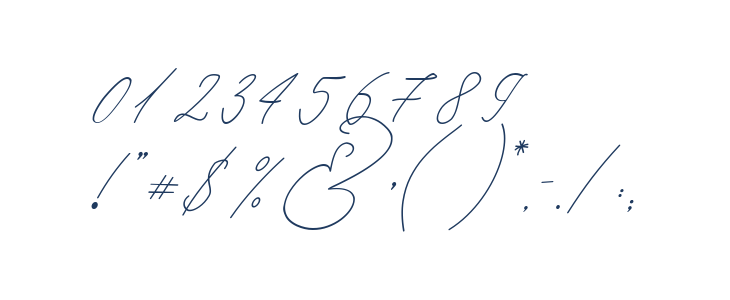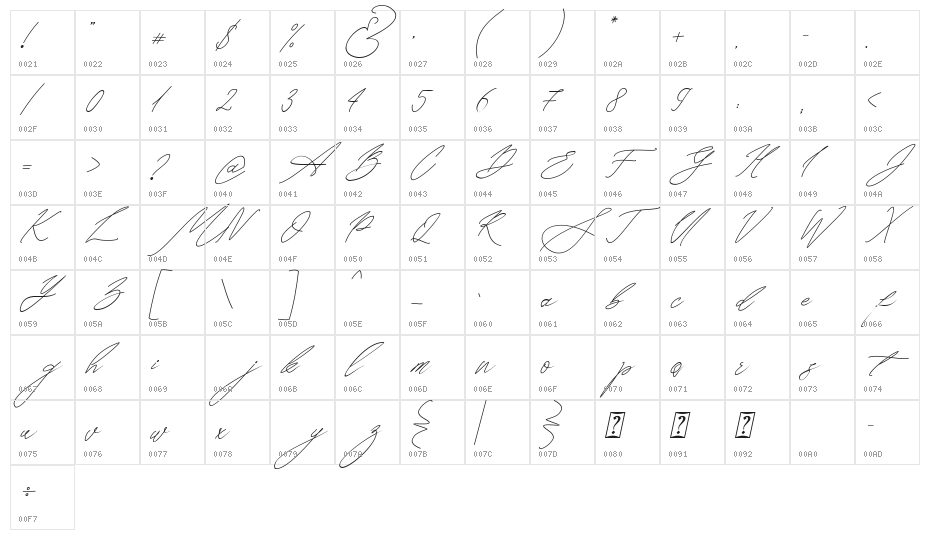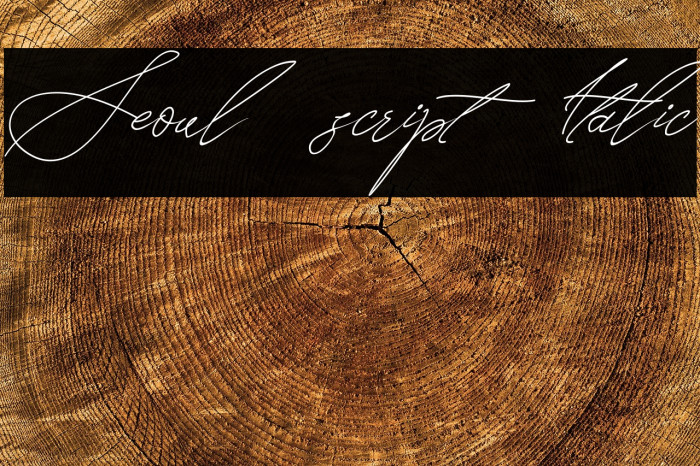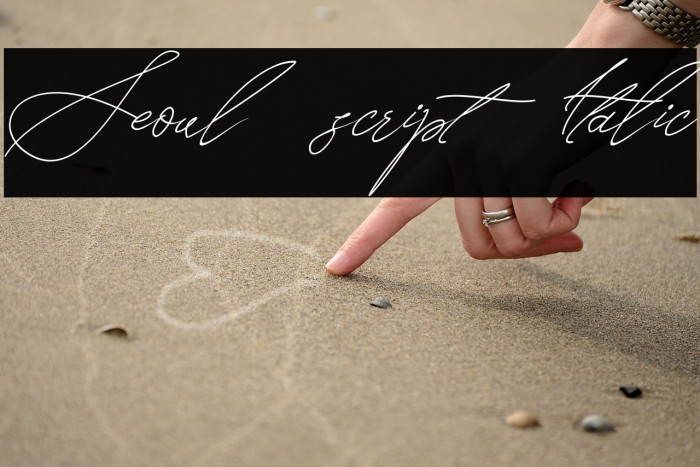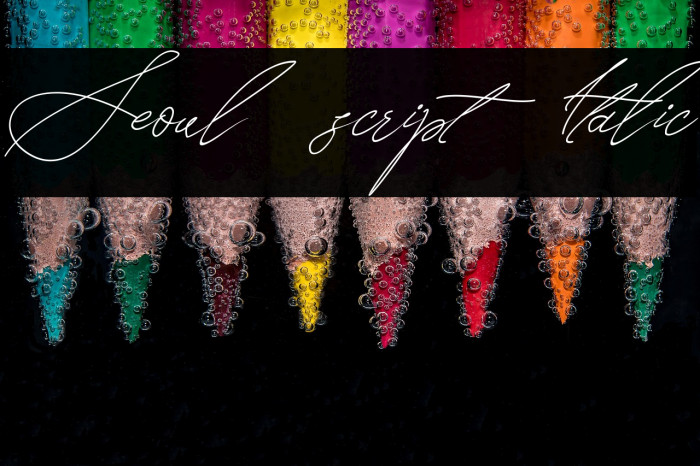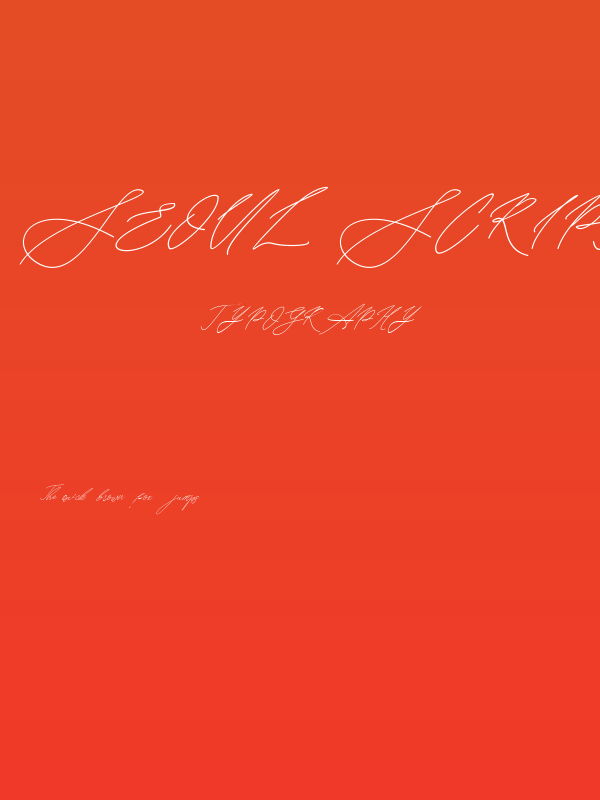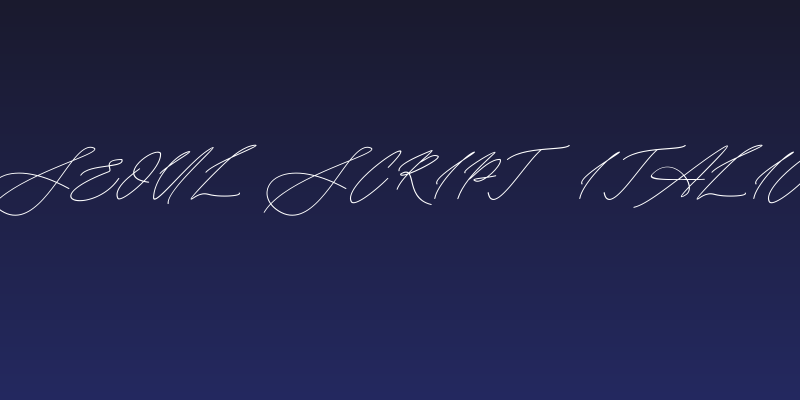
Seoul script Italic Font
Seoul script Italic Description
This font exudes elegance and sophistication with its flowing, cursive style. The letters are intricately connected, creating a seamless script that mimics the fluidity of handwritten calligraphy. Each character is crafted with delicate strokes, emphasizing a graceful and artistic flair. The uppercase letters are tall and slender, while the lowercase letters maintain a consistent flow, enhancing readability despite their decorative nature. Numbers and special characters are designed to complement the overall aesthetic, maintaining the same elegant curves and lines. This font is ideal for projects that require a touch of refinement and class.